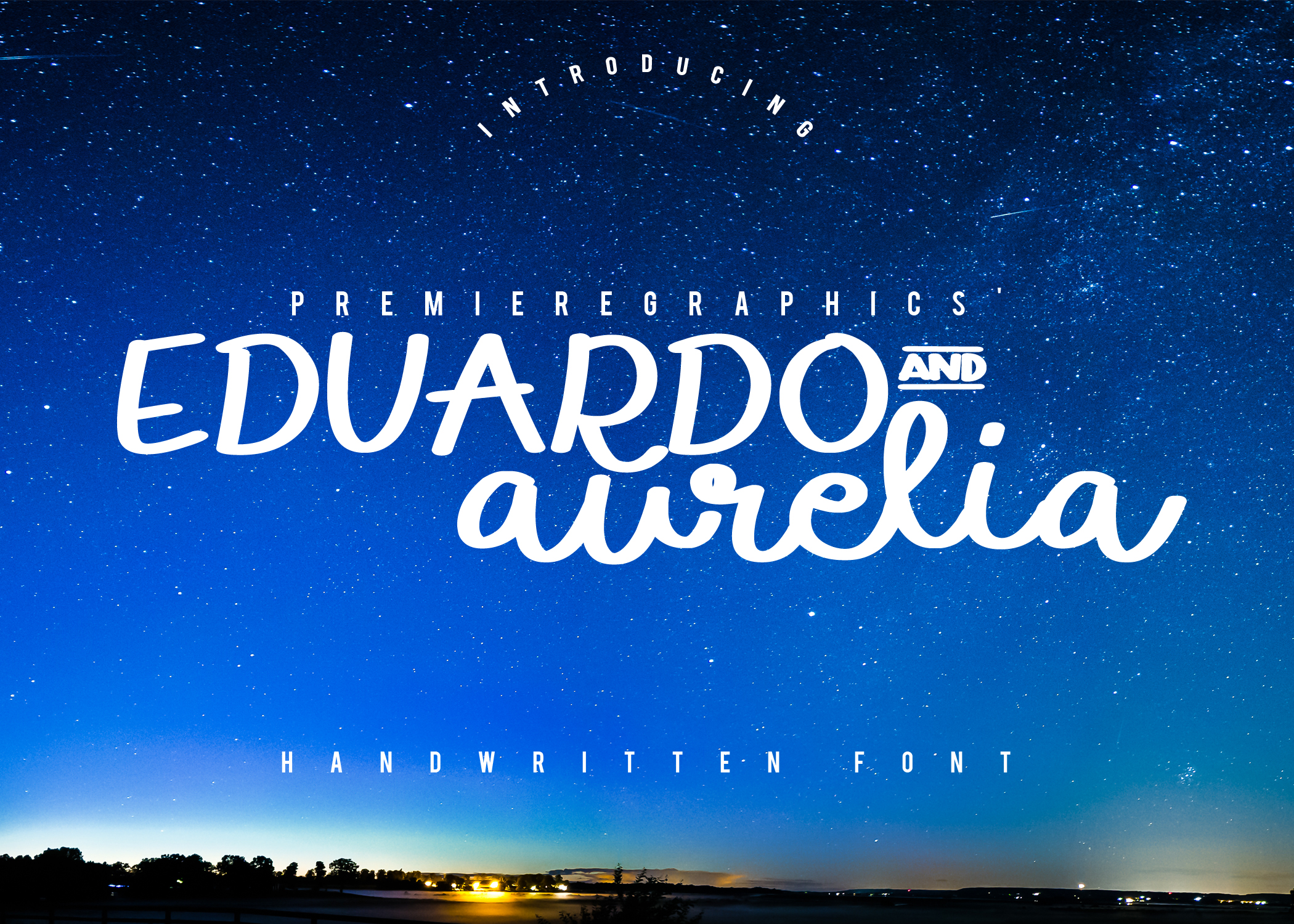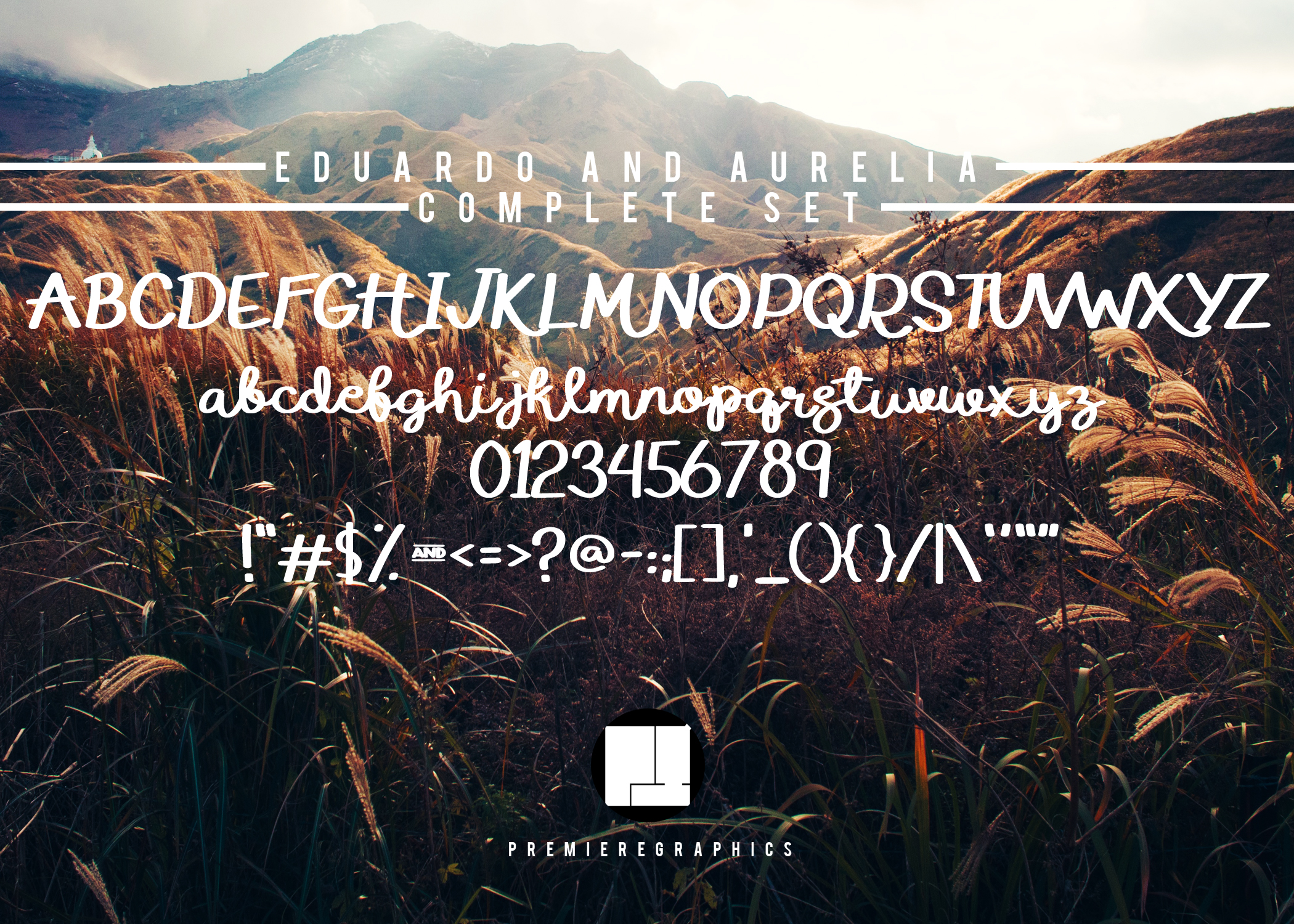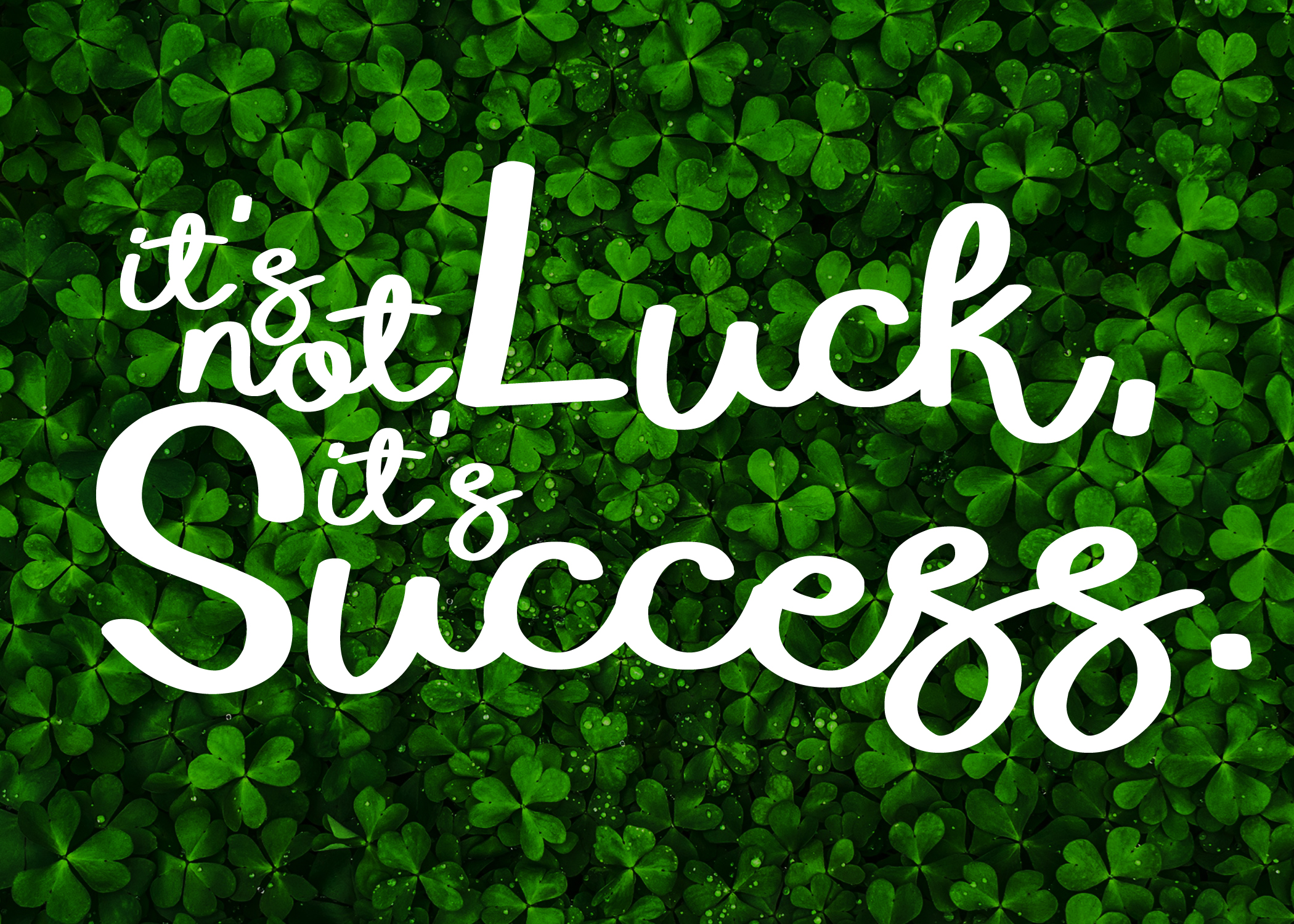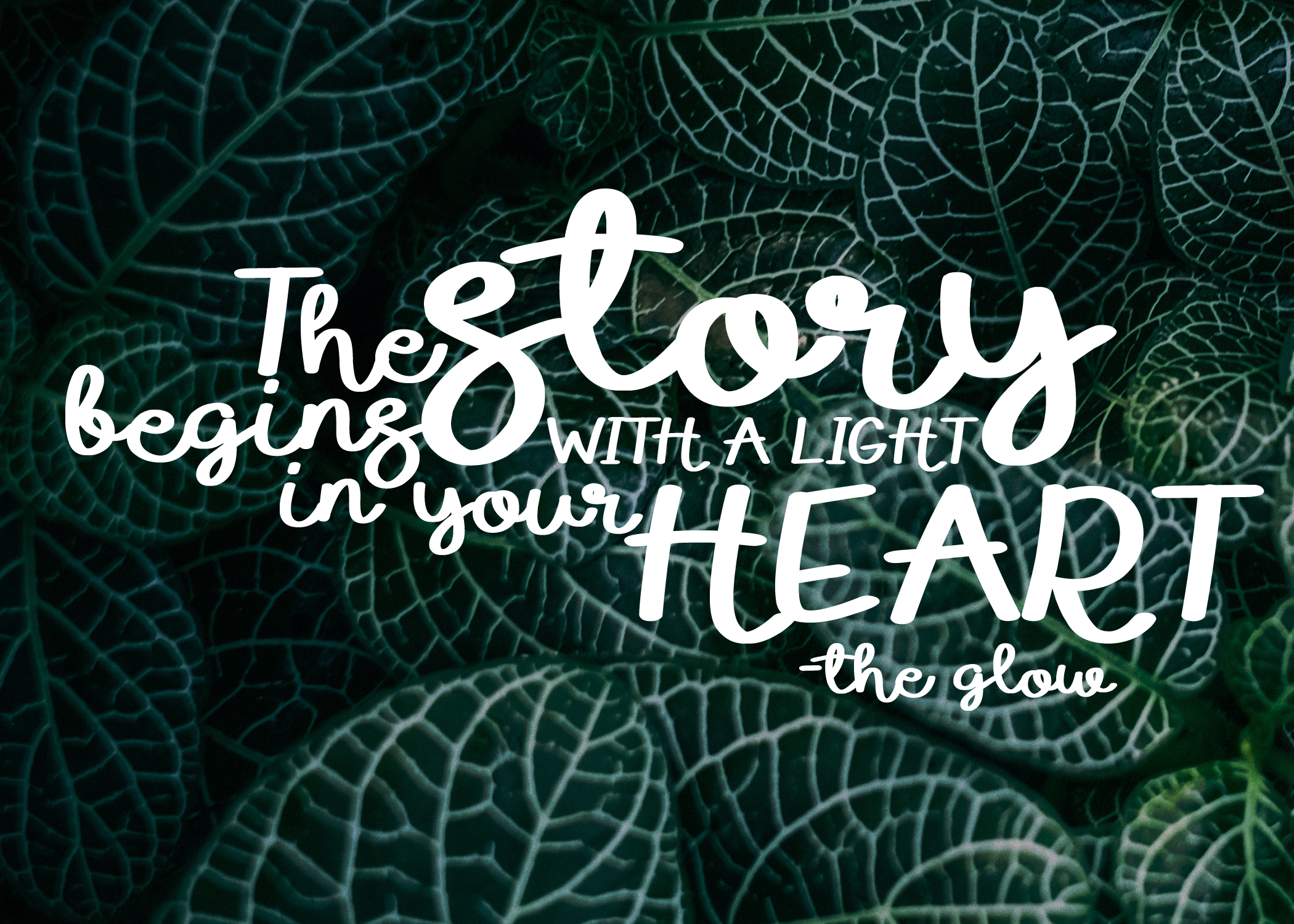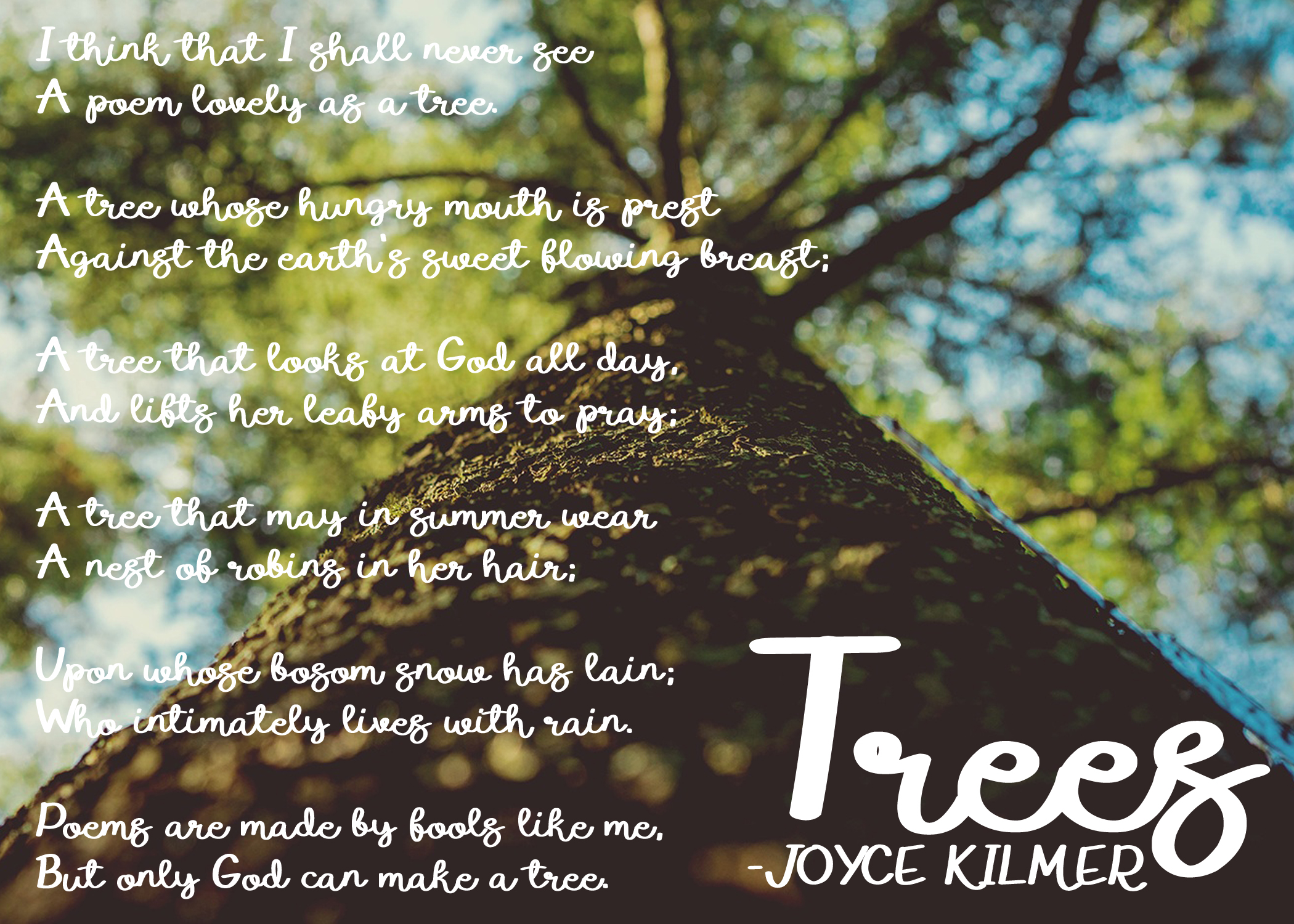
Eduardo and Aurelia Font
About Eduardo and Aurelia Font
Eduardo and Aurelia is one extraordinary typeface. Whether you are a designer or a poet, this is perfect for any project you will be working on.
Eduardo and Aurelia’s lowercase and uppercase characters are designed carefully to have an equal and unique style.